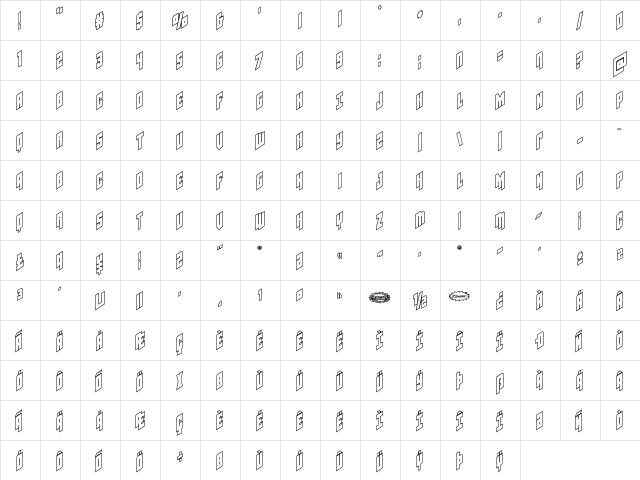
Galaxy Force Outline Regular
Design Context for Galaxy Force Outline Typeface
Galaxy Force Outline brings high-energy athletic personality to the page — its confident, muscular forms are built for impact.
A natural choice for gym brands, fantasy sports, jersey lettering, and action-driven headlines.
Pro Tip: Use Galaxy Force Outline in all-caps headlines where its athletic energy can fully express itself. Pair with a solid, simple sans for supporting text.